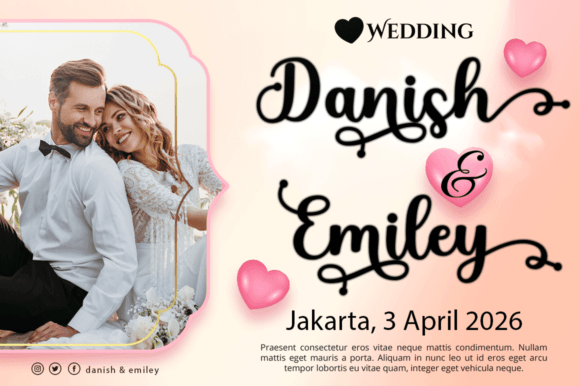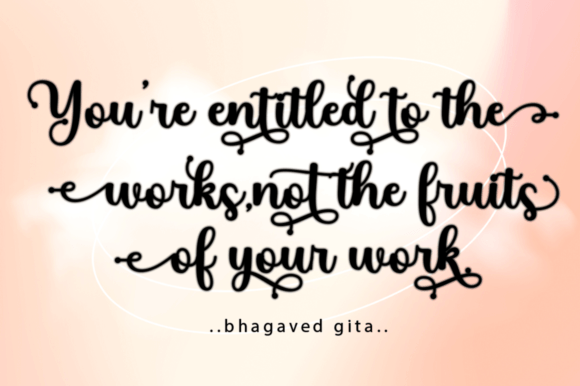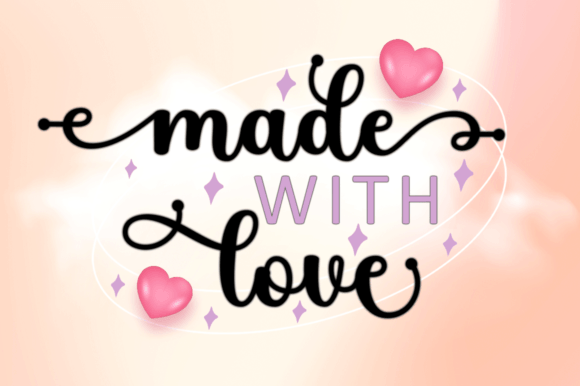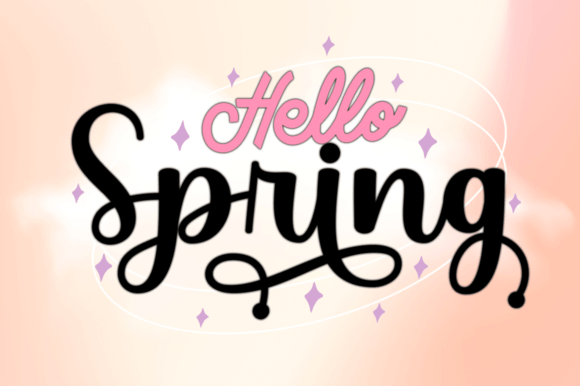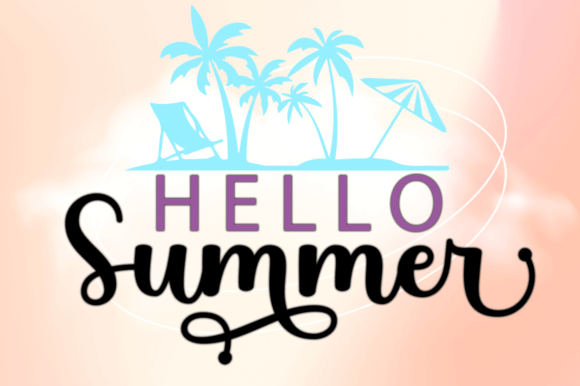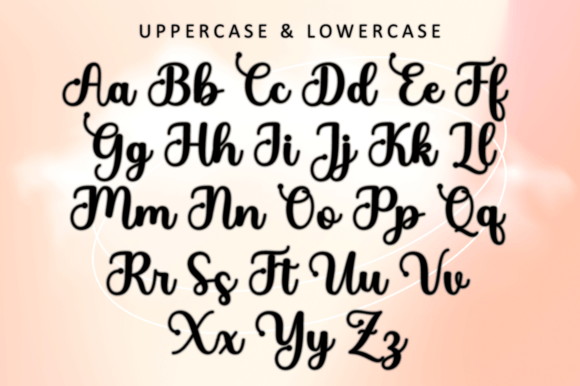
Introduction to Girly Stylish Font
Remember that moment when you stumble upon the perfect font that elevates your creative project from ordinary to extraordinary? For many designers, finding the ideal font is like discovering a treasure that makes all the difference in bringing their vision to life. The moment I came across the Girly Stylish Font, I knew I had found something special. This smooth and elegant handwritten font is a game-changer for any design project that requires a touch of femininity and sophistication.
As a valuable design resource, the Girly Stylish Font is perfect for designers who want to add a personal touch to their work. With its PUA encoded features, you can easily access all the amazing glyphs and ligatures that make this font truly unique. Whether you’re working on a wedding invitation, a social media post, or packaging design, this font is sure to impress.
Key Features of Girly Stylish Font
- High-quality, vector-based design for seamless scaling and printing
- Perfect for creative projects requiring a touch of femininity and elegance, such as invitations, greeting cards, and social media graphics
- Unique, hand-drawn style with intricate details and flourishes, adding a personal touch to any design project
Honest Review: Girly Stylish Font
I recently stumbled upon the Girly Stylish Font and was excited to give it a try in my creative project. I’ve been searching for a high-quality design resource that adds a touch of femininity to my designs, and this font definitely delivers.
What works well: ✨ The font is super easy to download and use, with a transparent background that makes it perfect for overlaying on images or other design elements. The design itself is playful, yet elegant, making it ideal for a wide range of creative projects.
The font comes in a variety of styles, from cursive to bold, giving me plenty of options to choose from depending on the vibe I’m going for. I also appreciate that it’s a free download, which is always a bonus in my book.
Limitations: ⚠️ While the font is generally high-quality, I did experience some issues with font size and legibility at smaller sizes. This might not be a problem for everyone, but it’s worth noting if you plan to use the font in small text.
Overall, I’m really impressed with the Girly Stylish Font and would definitely recommend it to anyone looking for a fun and feminine design element for their next creative project.
The Girly Stylish Font is ideal for creating feminine and elegant designs, such as invitation templates, wedding cards, and social media graphics. You can also use it for creating high-quality print materials, like business cards and brochures. Make sure to download the font for free and use it for your creative project.